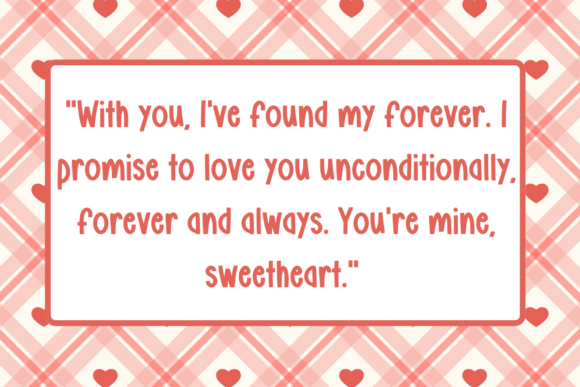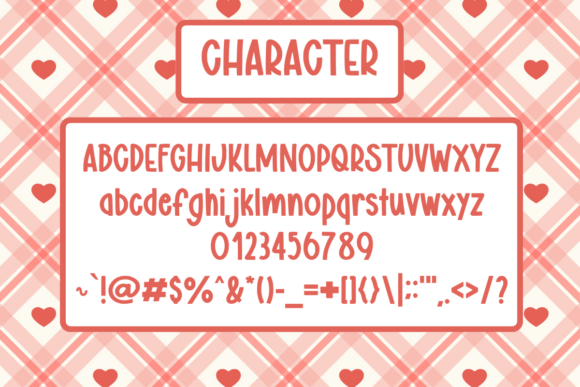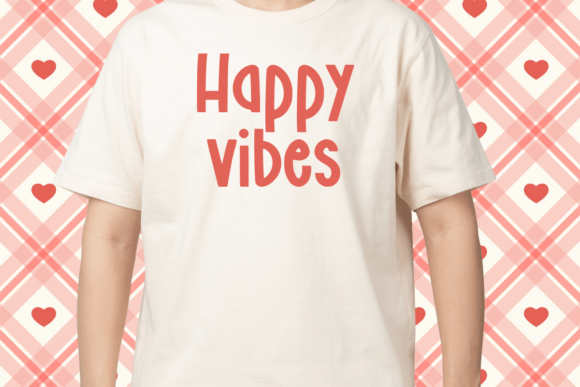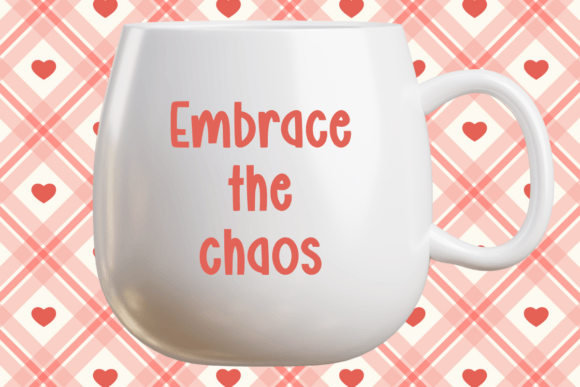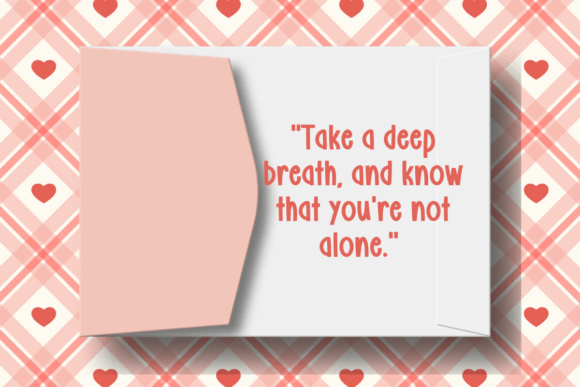
The Forever Yours Font: A Joyful Addition to Your Design Toolkit
I’ll never forget the time I was working on a project for a client’s anniversary celebration. I had all the elements in place – the colors, the graphics, the message – but something was missing. That’s when I realized I needed the perfect font to tie everything together. After hours of searching, I stumbled upon the Forever Yours font, and it was love at first sight! ✨ This fun sans serif font added an incredibly joyful touch to my design, and I knew right then and there that it was going to make my project stand out.
An Honest Review of Forever Yours Font
- ✨ The playful and modern vibe it brings to any design
- ✅ Easy to read and understand, even in smaller sizes
- 💃 Highly versatile and adaptable to various design styles
- 🎉 Excellent for headlines, titles, and short paragraphs
While Forever Yours is an amazing font, there are a few things to keep in mind: 🤔
- ⚠️ It may not be the best choice for body text or long paragraphs, as it can be a bit too playful for that purpose
- ⚠️ Some of the OpenType features might not work seamlessly in older software or browsers
The Backstory Behind Forever Yours Font
The designer behind Forever Yours font was inspired by the joy of creating something beautiful and unique. With a passion for typography and a love for playful design, they set out to create a font that would bring a smile to people’s faces. The result is a font that’s both modern and fun, perfect for designers, crafters, and creative hobbyists alike.
Q: What type of projects is Forever Yours font best suited for?
A: Forever Yours font is perfect for projects that require a playful and modern touch, such as anniversary celebrations, birthday parties, or social media graphics.
Q: Is Forever Yours font available in different weights or styles?
A: Yes, Forever Yours font comes in various weights and styles, making it versatile and adaptable to different design needs.